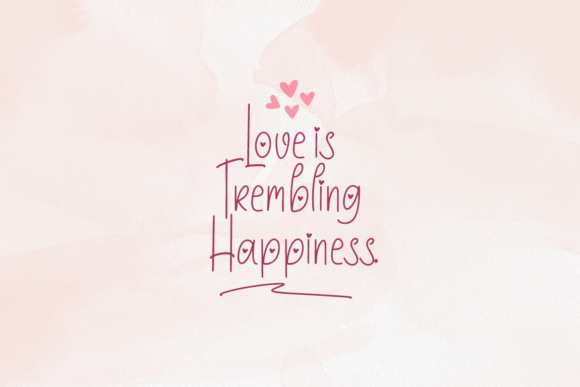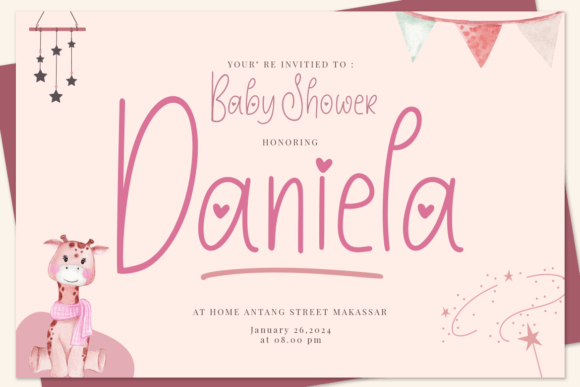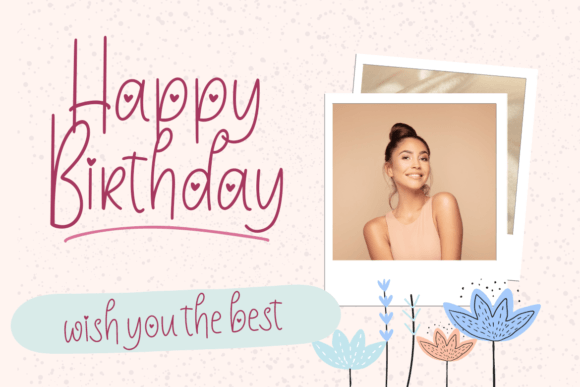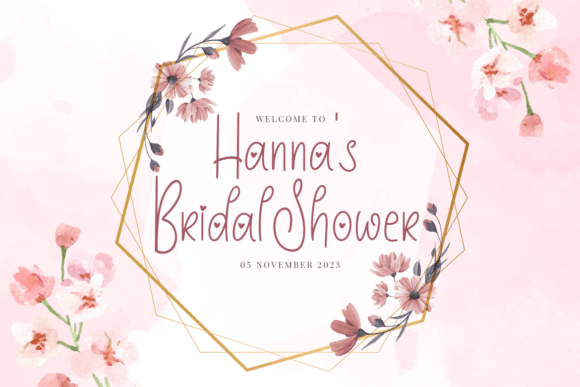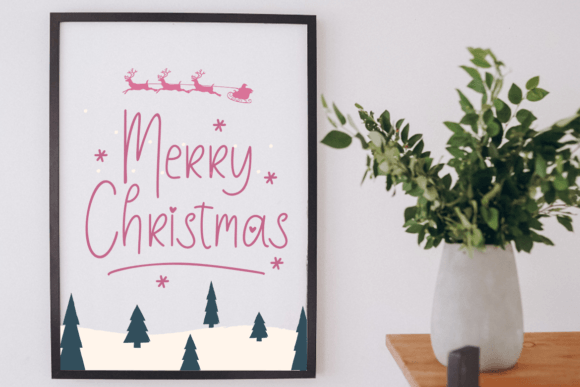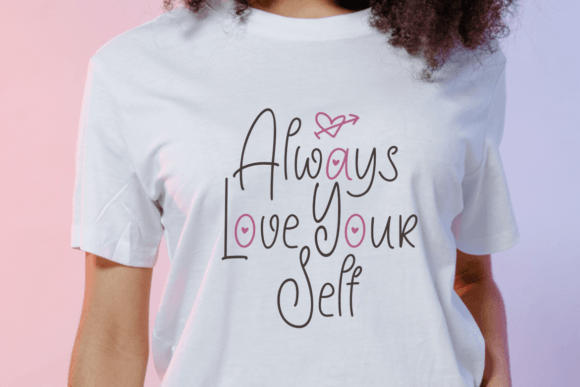
Introduction to Love String Font
Have you ever stared at a blank canvas, a blank page, or a blank screen, desperately searching for the perfect words to bring your creative vision to life? That’s exactly where I was when I stumbled upon the enchanting Love String Font. This lovely monoline font is a masterclass in simplicity and style, making it an absolute dream to work with. Whether you’re crafting a romantic Instagram post, designing a beautiful wedding invitation, or creating a stunning calligraphy script for your next DIY project, this font will elevate your creative idea into a true work of art.
As a designer, you know the value of having a high-quality design resource at your fingertips. And that’s exactly what Love String Font offers – a versatile and elegant font that’s perfect for any creative project. With its transparent background and smooth lines, this font is a game-changer for designers looking to add a touch of sophistication to their designs.
Key Features of Love String Font
- High-quality design: Love String Font is crafted with precision and care to provide a unique and visually appealing look for your creative project.
- Transparent background: This font features a transparent background, making it perfect for designers who want to add a touch of elegance to their designs.
- Unique ligatures: The font includes a range of unique ligatures that add a personal touch to your designs, making it perfect for creative projects that require a high level of customization.
Honest Review: Love String Font
I recently stumbled upon the Love String Font, a unique and playful design resource that caught my eye. As a designer, I appreciate high quality fonts that can add a personal touch to a creative project. In this review, I’ll share my thoughts on this font.
- The Love String Font is incredibly versatile and can be used in a variety of design contexts, from wedding invitations to social media graphics.
- The transparent background makes it easy to customize and combine with other design elements.
- The font may not be suitable for formal or professional designs, as it has a playful and whimsical feel.
Overall, I’m impressed with the Love String Font. It’s a great design resource for designers who want to add a touch of personality to their projects. While it may have some limitations, the font’s versatility and free download make it a valuable addition to any design arsenal.
Tips for Getting the Most Out of the Love String Font
To get the most out of the Love String Font, try combining it with a transparent background to create a high-quality design resource. This font is perfect for creative projects that require a unique and eye-catching touch.
The Love String Font is ideal for use in a variety of creative projects, including invitations, social media graphics, and marketing materials. Its unique design makes it a great addition to any high-quality design resource.